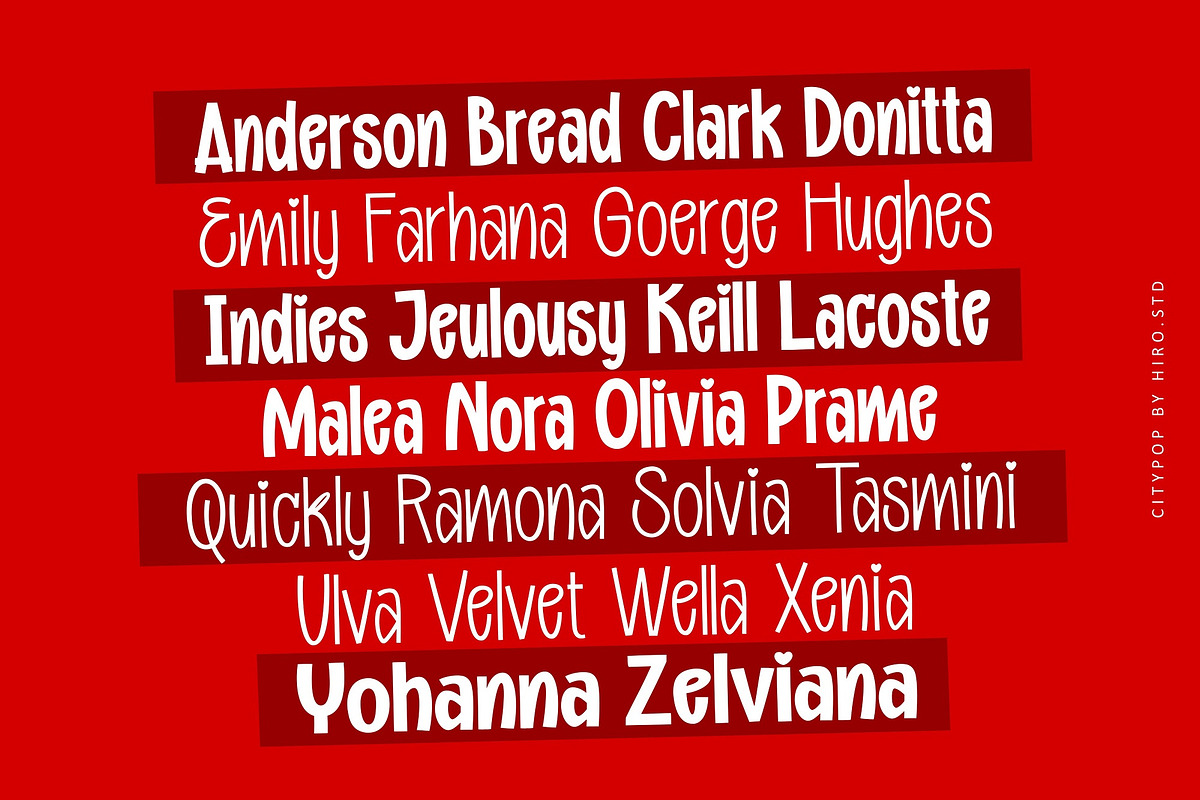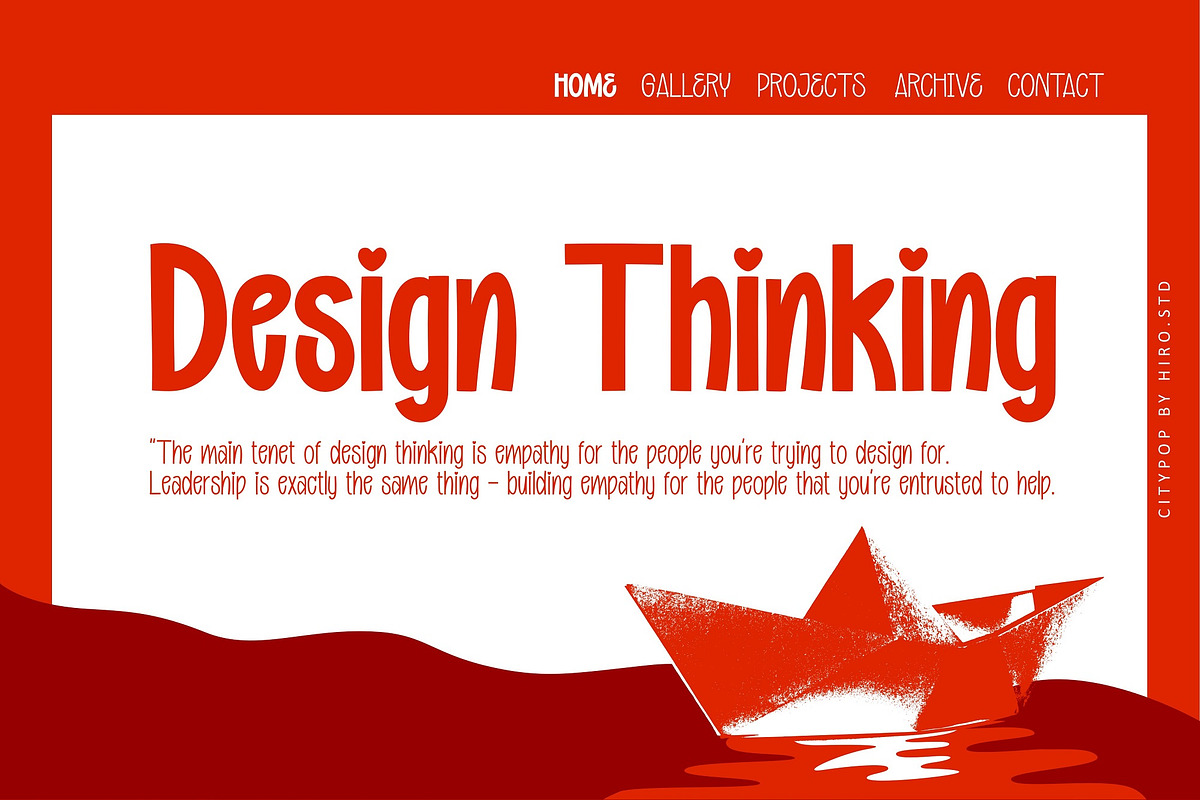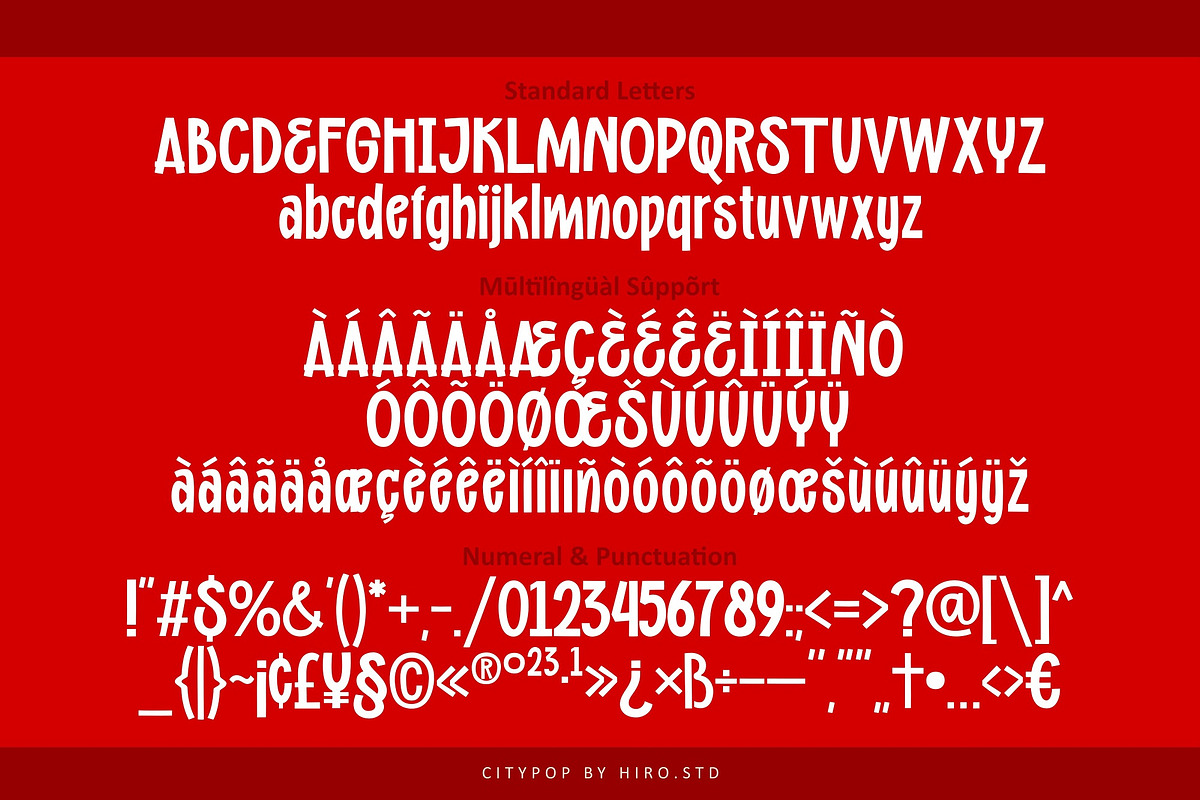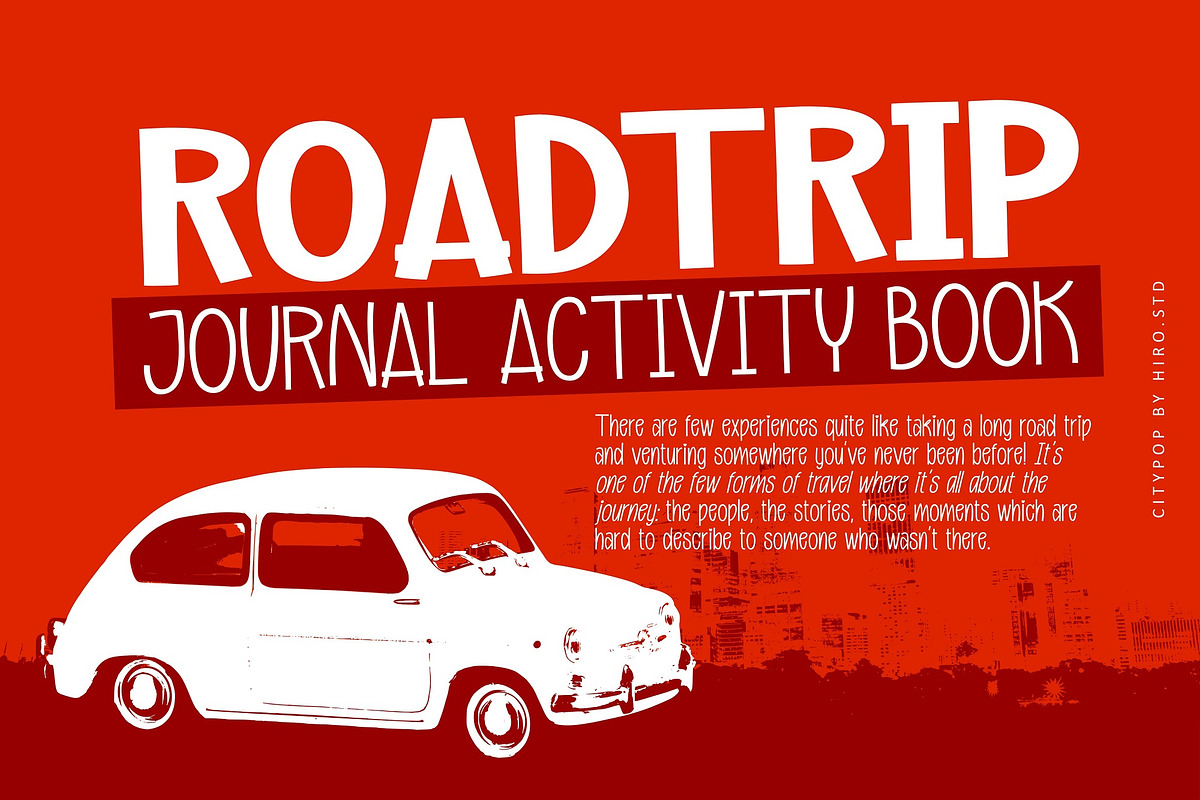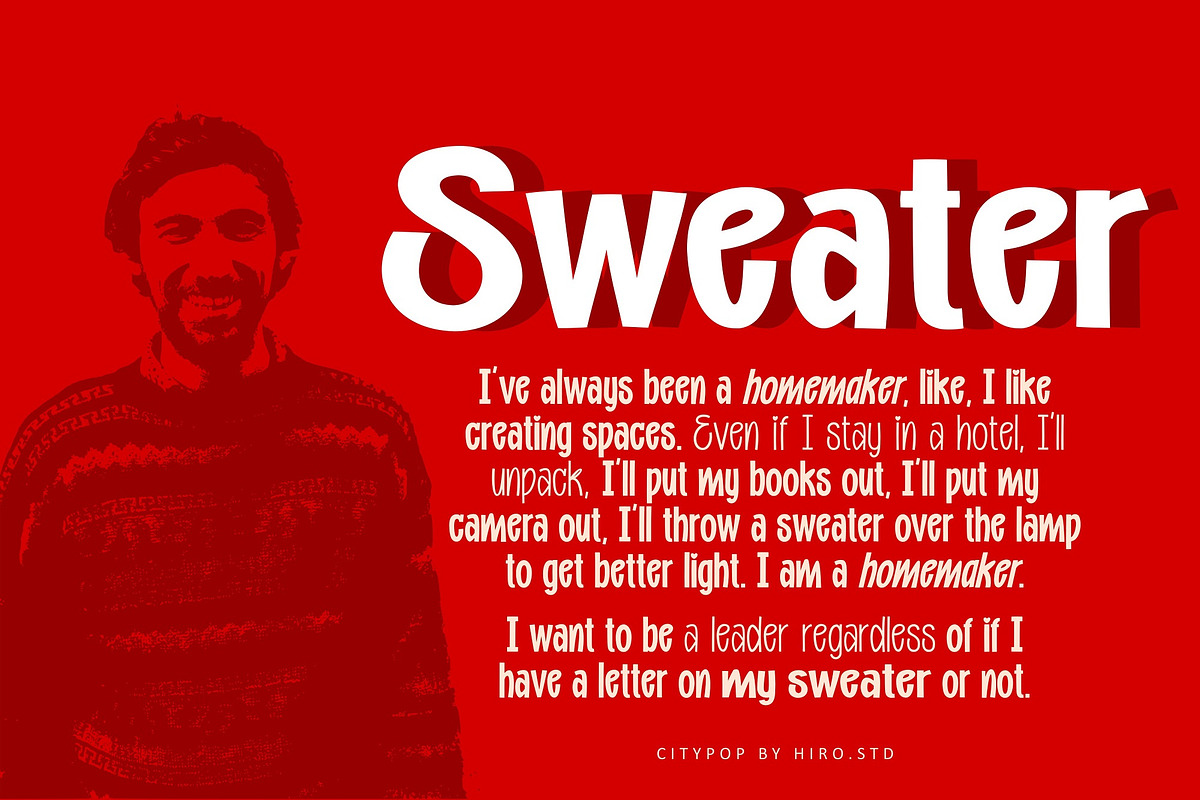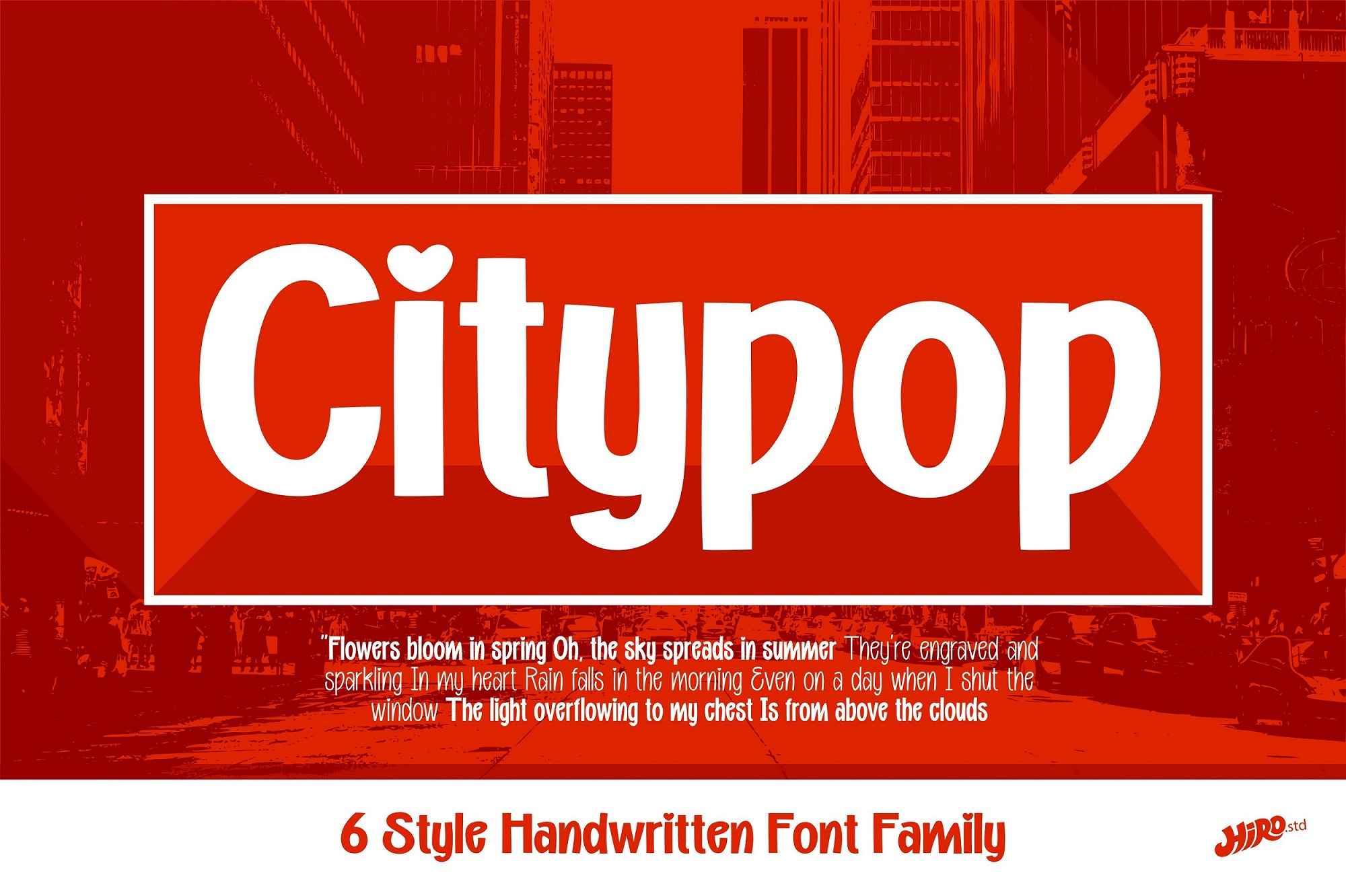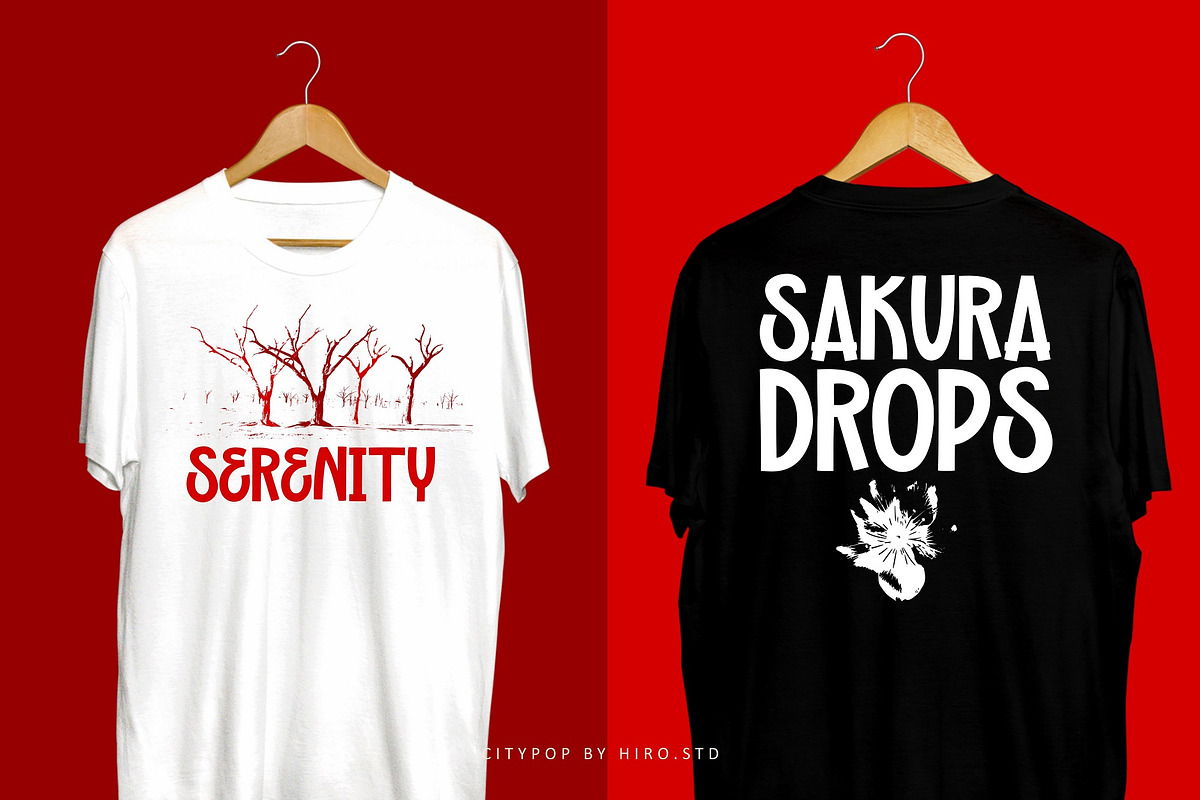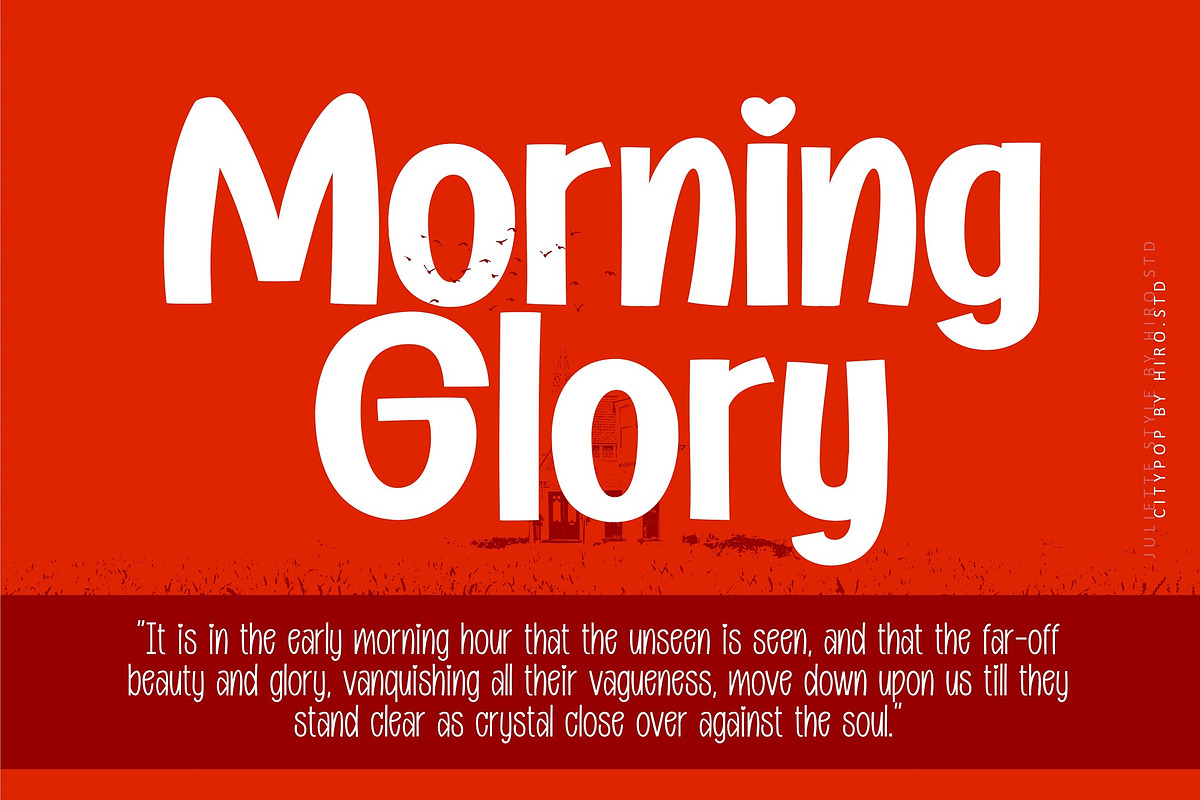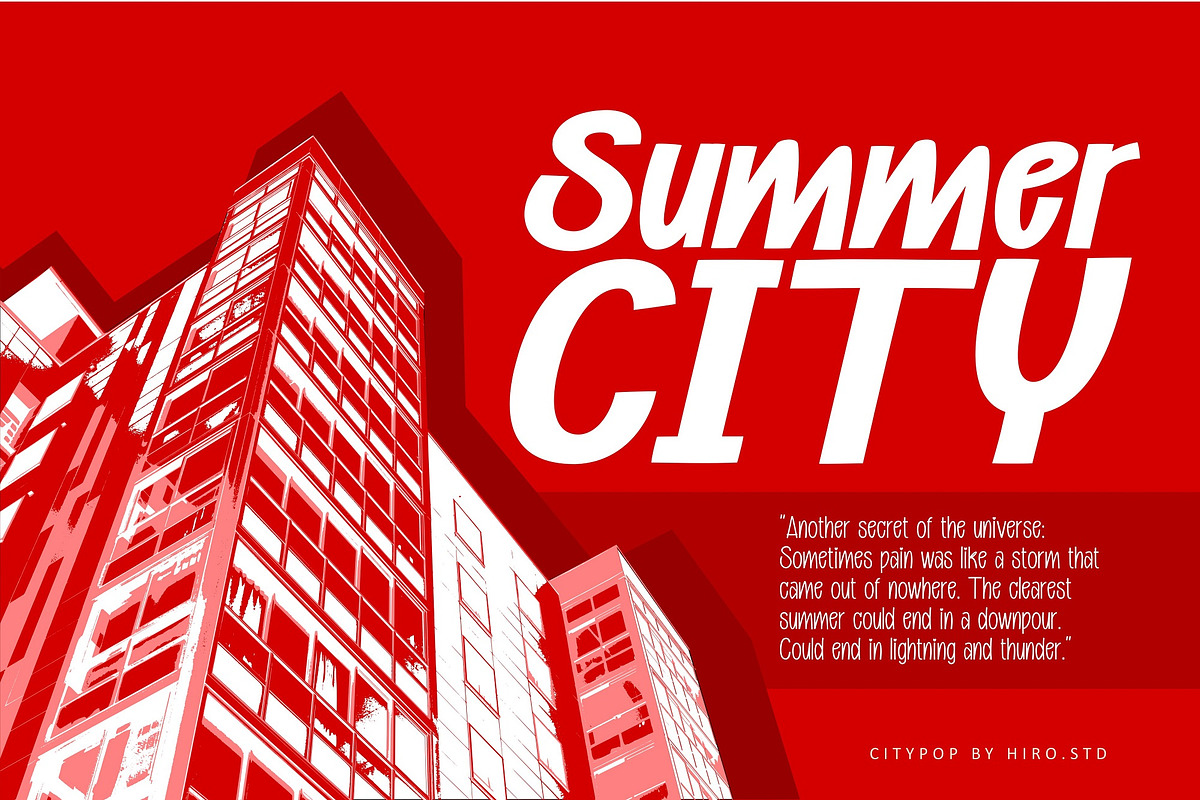
Citypop - Handwritten Font Family
Citypop is a futuristic display font.
This font describes fresh, fun, dynamic, humanism, pop, simple, clean and easy to use.
USE Citypop works great in movie title, headline, logotype, labels, magazine, packaging, apparel, and any projects that need dynamic and fun taste.